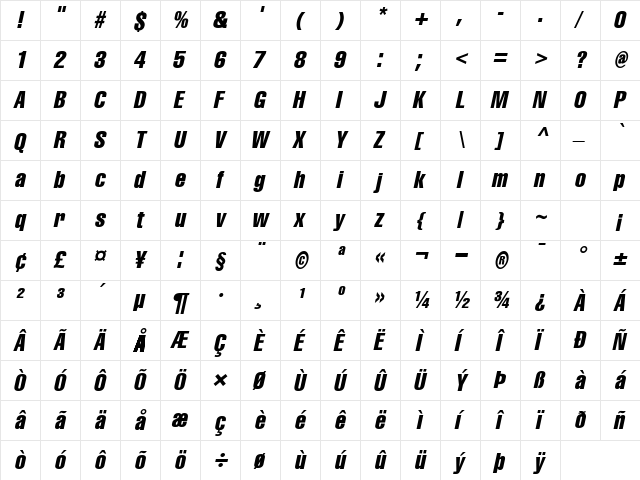
CorporateCompressed Italic
Design Context for CorporateCompressed Typeface
CorporateCompressed offers clean, dependable letterforms without strong stylistic allegiance, making it a practical choice for designers who need flexibility. Its italic angle brings a sense of urgency and motion to the letterforms.
Pro Tip: Use CorporateCompressed for emphasis, pull quotes, and subheadings where its slanted energy can add rhythm to the layout.